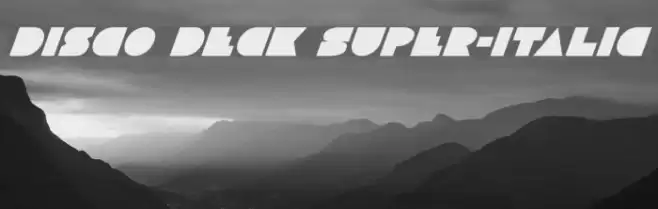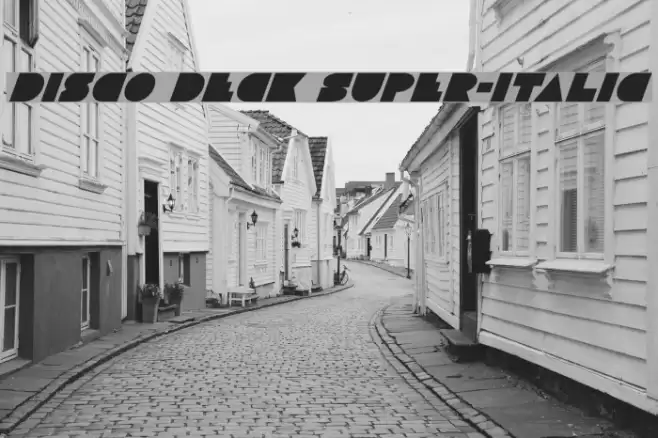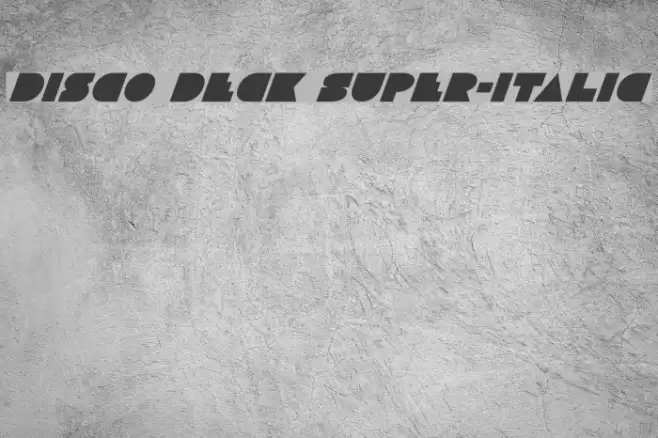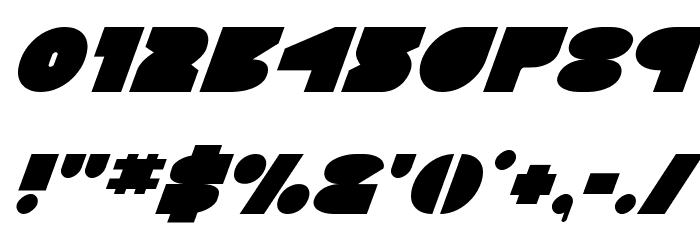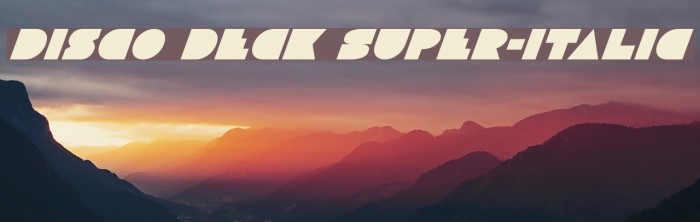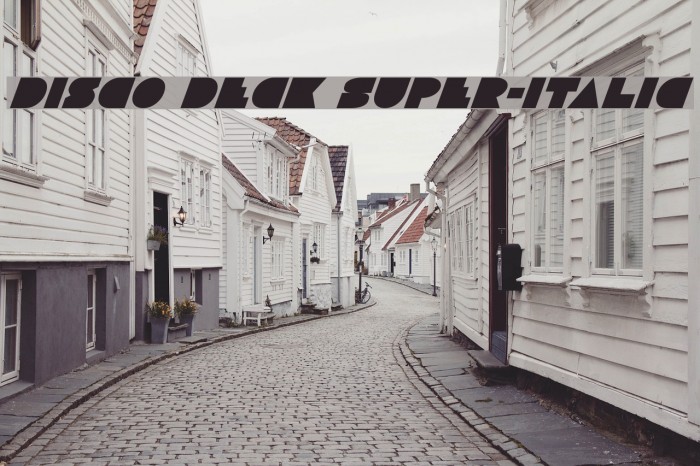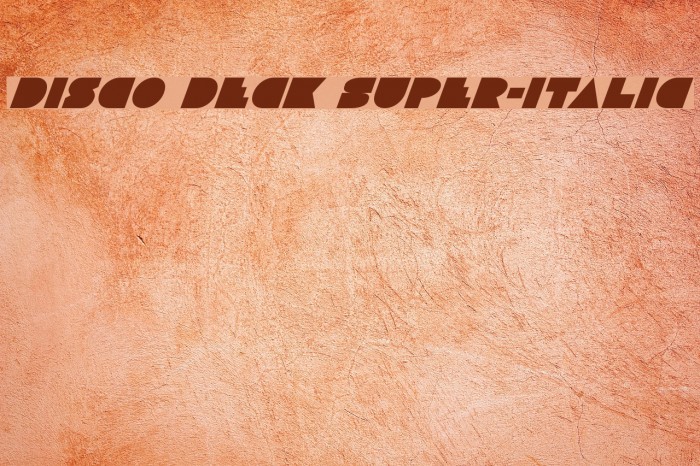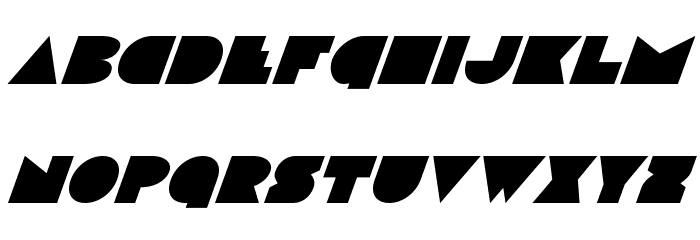
Disco Deck Super-Italic Font
Disco Deck Super-Italic Description
This font features a bold and dynamic style with a distinct italic slant, reminiscent of retro and disco aesthetics. The characters are designed with sharp angles and geometric shapes, creating a sense of movement and energy. The uppercase and lowercase letters maintain a consistent style, with the lowercase slightly more rounded. Numbers and special characters follow the same bold and angular design, ensuring uniformity across all glyphs. The font's unique style makes it stand out, ideal for projects that require a strong visual impact.
A bold, italic font with a retro, geometric style from Uncategorized fonts.
- Proposed Projects: Ideal for music album covers, event posters, branding for entertainment venues, and retro-themed designs.
- Overall Style: Retro, Energetic, Geometric